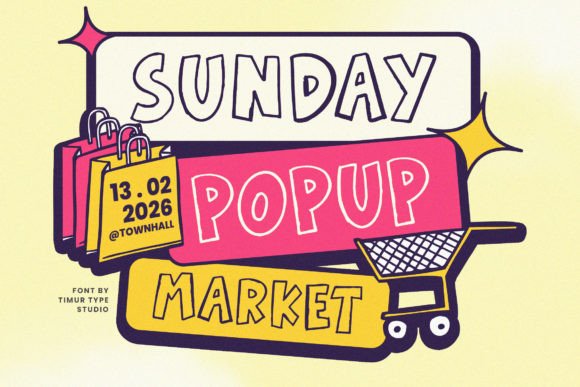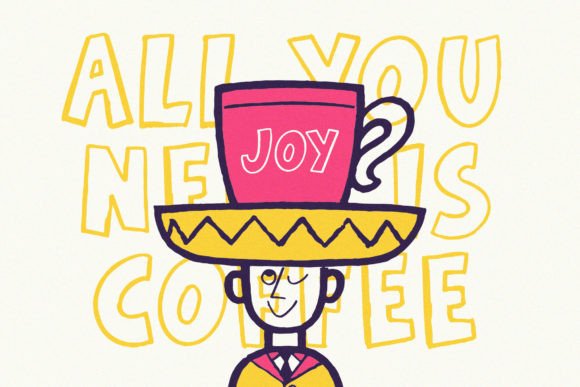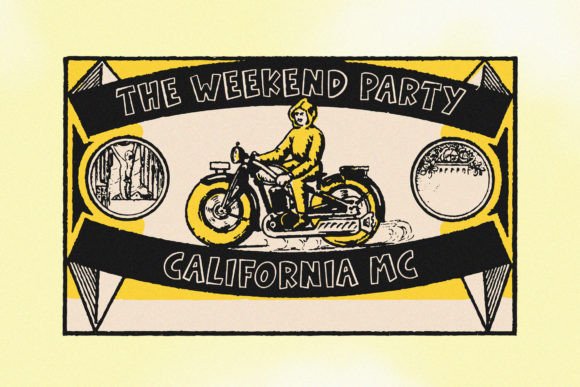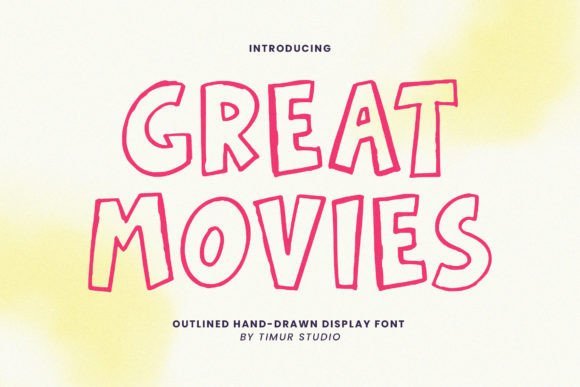
Introduction to Great Movies Font
Great Movies is a charming hand-drawn display font that captures the essence of vintage cinema posters.
Its outlines are meticulously crafted to evoke a sense of nostalgia and excitement, reminiscent of classic Hollywood Each letter is carefully designed with a unique flair, offering a playful yet sophisticated style perfect for capturing attention in headlines, posters, or any design project aiming to convey a sense of cinematic magic and adventure.